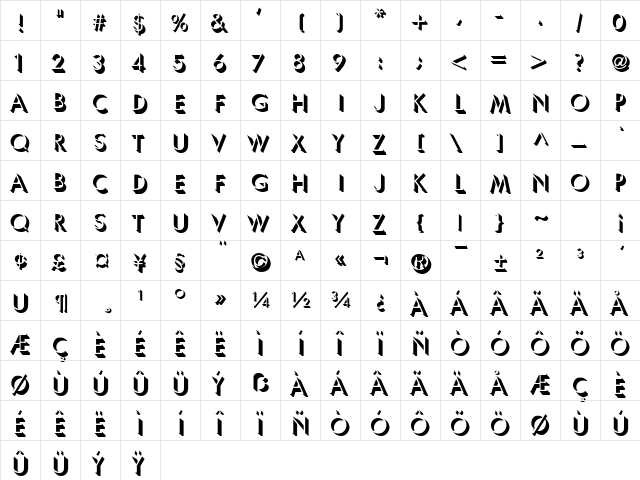
Umpa Normal
Design Context for Umpa Typeface
Umpa is a composed and adaptable typeface that performs quietly and consistently across a wide range of design contexts.